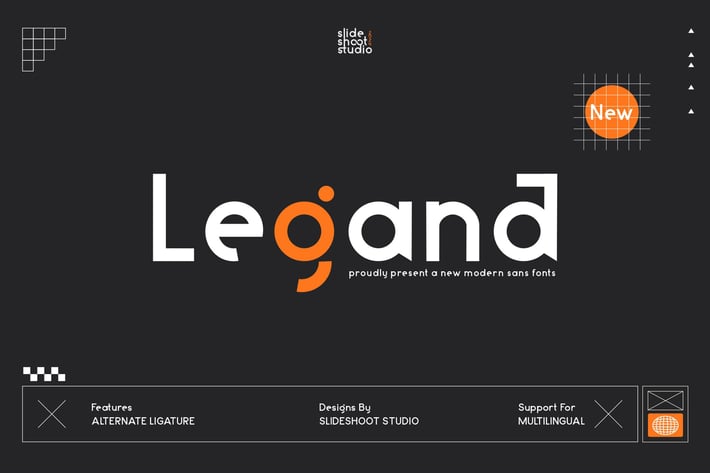
Legand || Modern Sans Serif Font
Legand is a sans serif font with a modern, elegant, and futuristic look. This font is perfect for invitation card designs, company logos, movie titles, movie names, business cards, book titles, brand names, and various other designs. Its stylish alterations and ligatures make this font a perfect partner for any project.